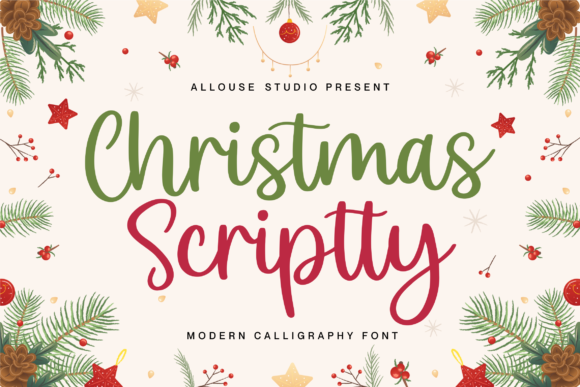
Looking to add a touch of elegance and sophistication to your design projects? Look no further than Christmas Scriptty Font! Created by allouse.studio, this dazzling script font is the perfect choice for those seeking a font style for invitation cards or any design that requires a luxurious and eye-catching touch.
With Christmas Scriptty Font, you can effortlessly elevate your creations and captivate your audience. Its elegant and flowing letterforms exude a sense of charm and grace, making it an ideal choice for wedding invitations, holiday cards, and special event announcements. The font's script style adds a touch of personalization and warmth, making each design truly unique.
Impress your clients and loved ones with the enchanting beauty of Christmas Scriptty Font. Its versatility allows it to shine in a wide range of design projects, from logos and branding to social media graphics and advertisements. No matter the occasion, this font will make a lasting impression.
Featuring a wide range of characters and ligatures, Christmas Scriptty Font offers endless possibilities for creativity. Its smooth curves and intricate details make it a pleasure to work with, ensuring that your designs stand out from the crowd. Whether you're a professional designer or a DIY enthusiast, this font will make your projects look professional and polished.
Not only does Christmas Scriptty Font offer visual appeal, but it also boasts impeccable readability. Each letter is carefully crafted to ensure clarity and legibility, even at smaller sizes. Your message will be delivered with style and elegance, leaving a lasting impact on your audience.